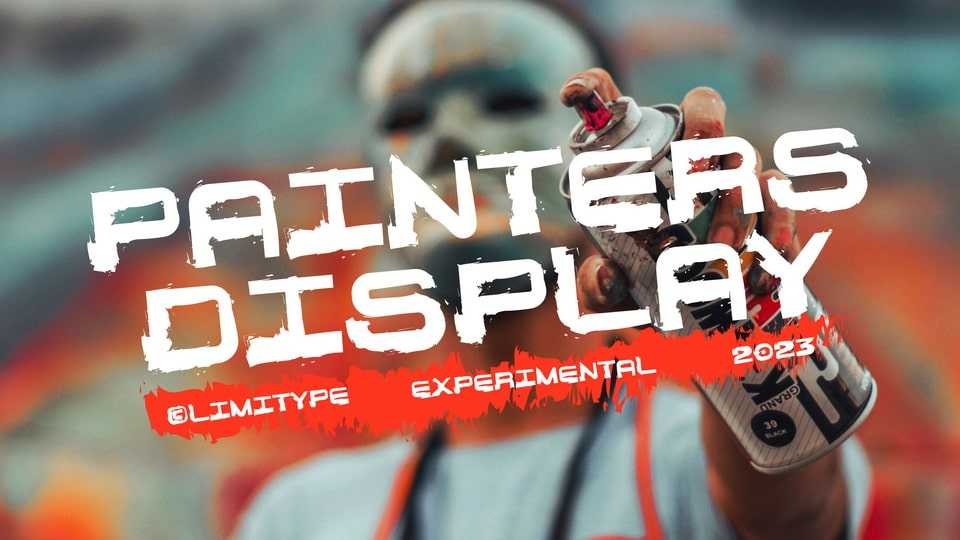
Download Painters Display font, a display typeface with a brutal style but still modern and fun, inspired by paint splashes and scratches, suitable for your fun, free and cool designs.